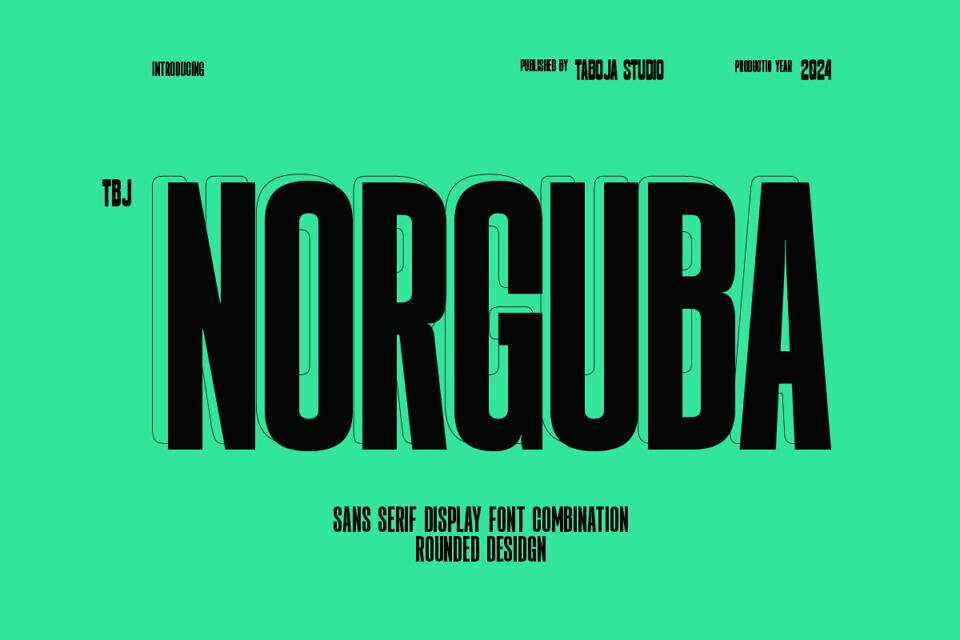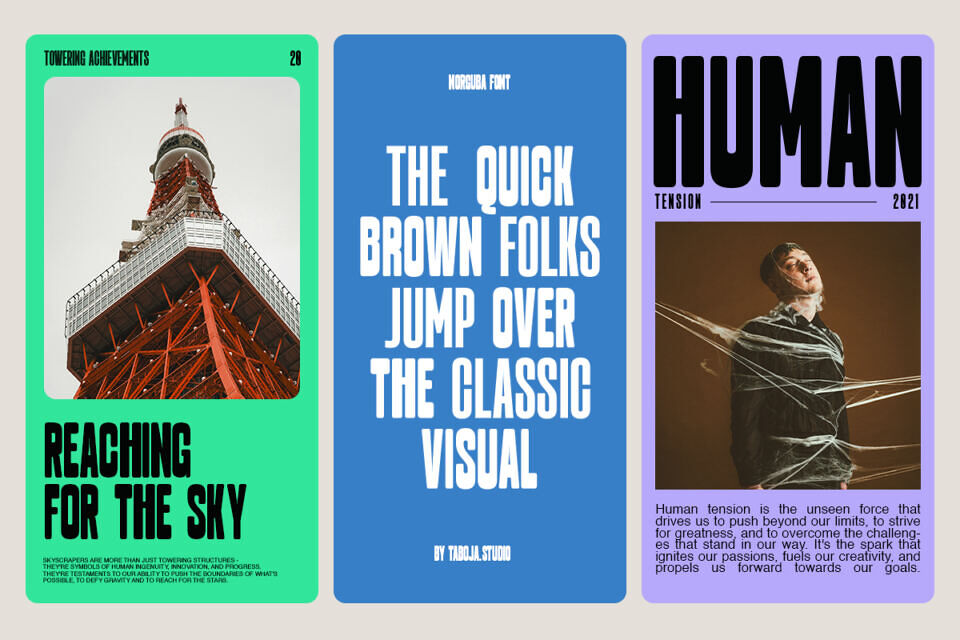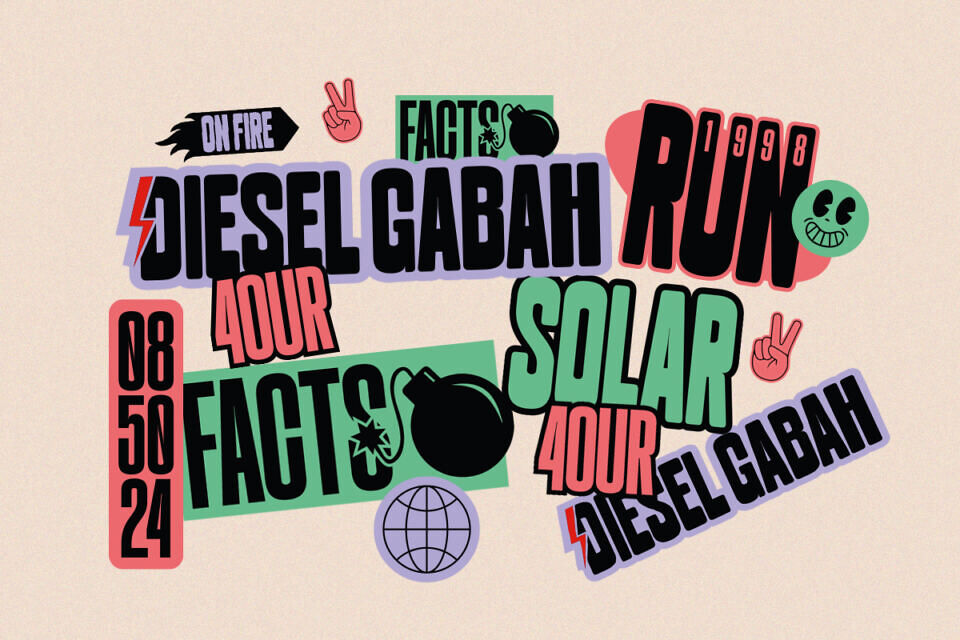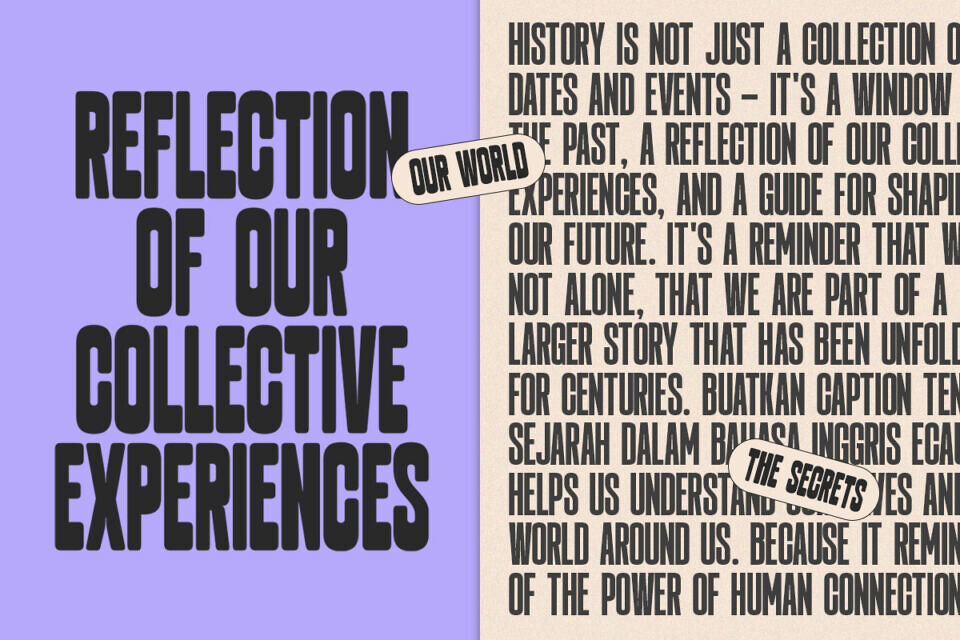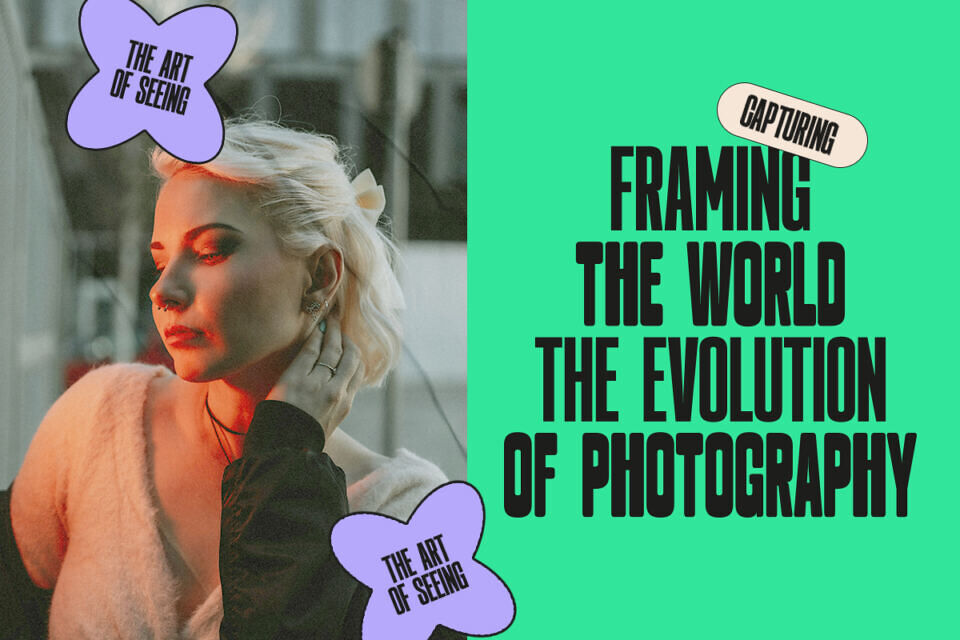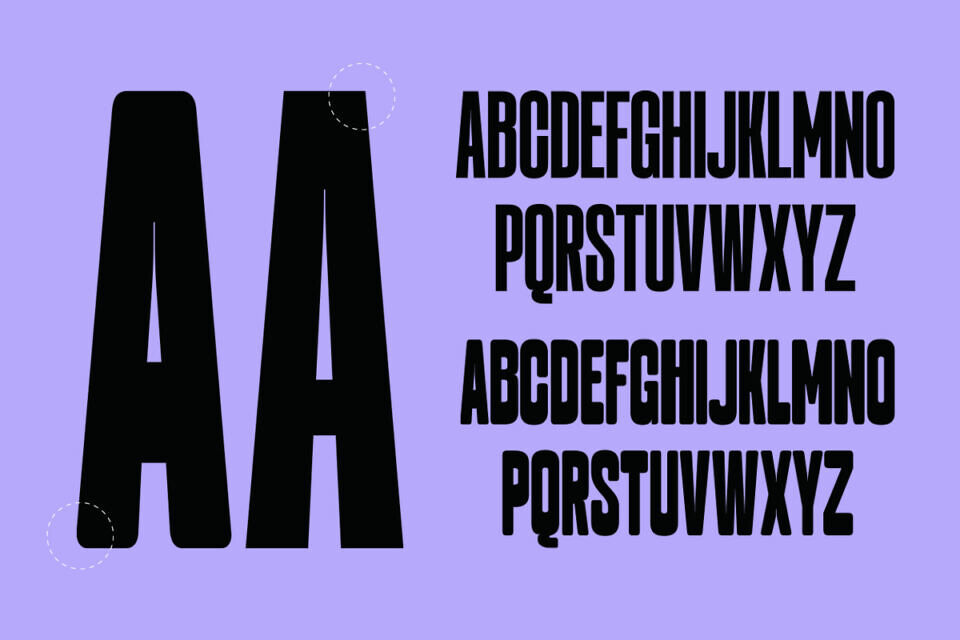
TBJ Norguba Font
Introducing TBJ Norguba, a versatile display-type font that embodies the essence of contradictions. With its condensed regular style and joyful variable font feature, Norguba seamlessly blends elegance with a touch of awkwardness, offering a unique typographic experience.
Whether you’re aiming for a relaxed and sensuous vibe or seeking a more versatile and dynamic look, Norguba has got you covered. It’s perfect for brand identities with heart, packaging, and genuine, effortless messaging. Posters, billboards, and motion graphics that fly off the screen.